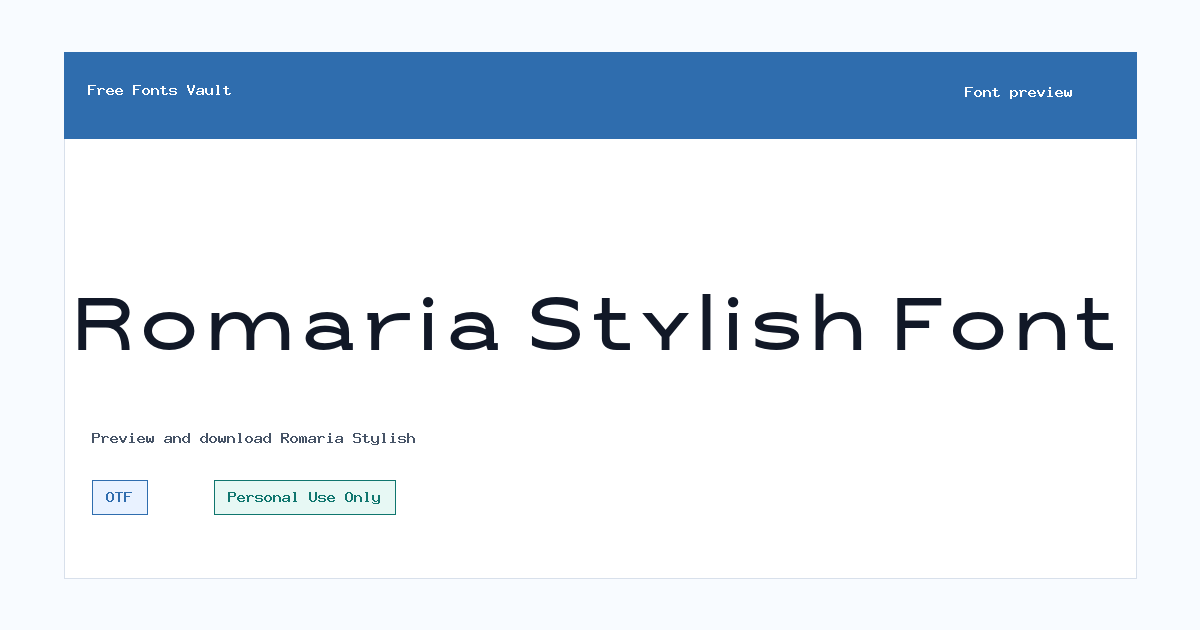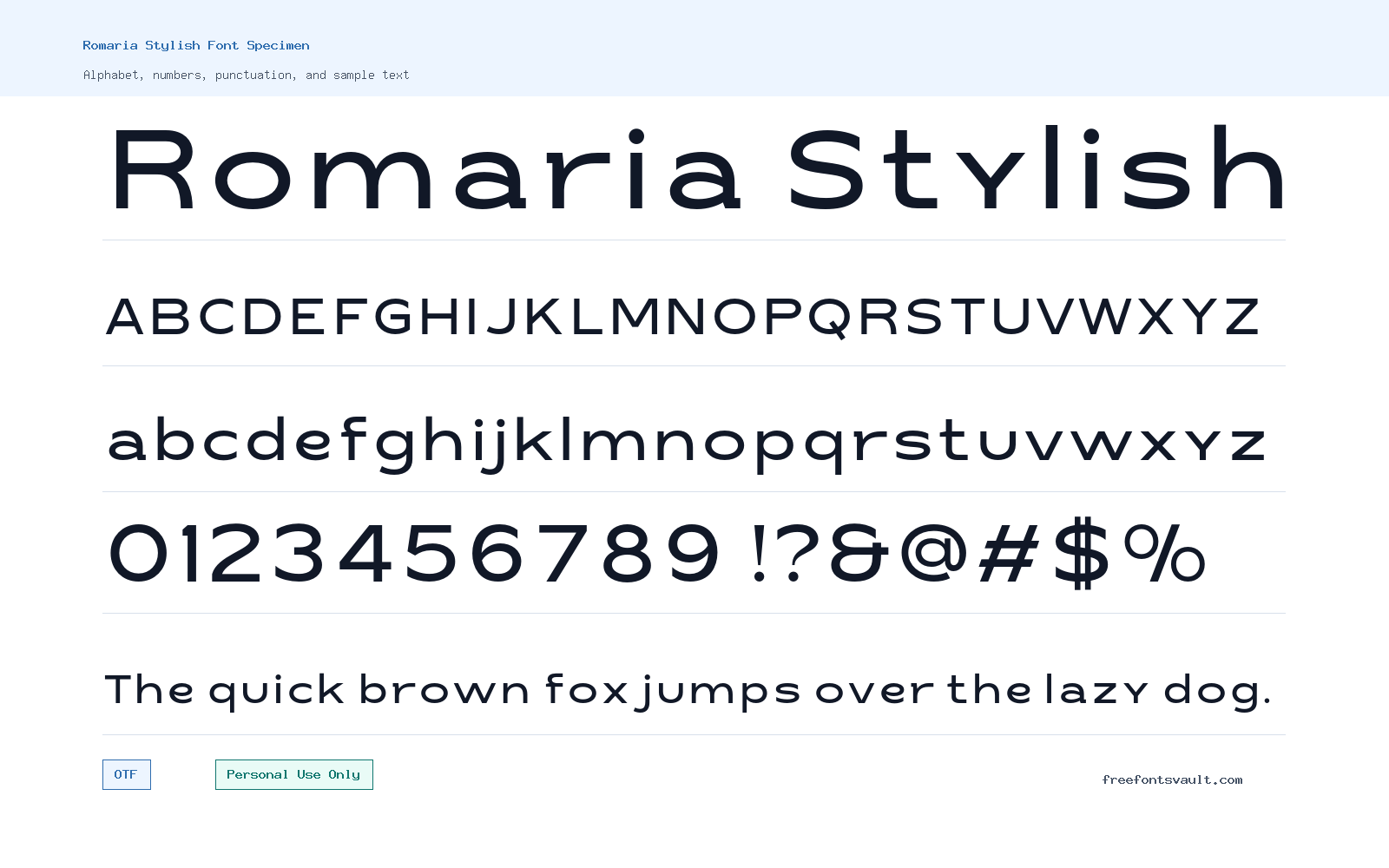
Romaria Stylish
Romaria Stylish is a personal-use display font for short, decorative text where the lettering needs to feel more expressive than a standard serif or sans serif.
Romaria Stylish works best as a headline or accent font rather than a long-reading text face. The name points toward a stylish display direction, so it is best approached as a font for titles, logo drafts, poster lines, invitation headings, packaging mockups, social graphics, and other places where a few words need visual character. Since the available file is an OTF regular style, visitors should test it in the preview box with the exact words they plan to use. Decorative fonts can change a lot depending on letter combinations, spacing, and capitalization, so checking names, brand words, and short phrases before downloading is worth the extra minute.
Use Romaria Stylish with restraint. It can give a design a more crafted or boutique look, but it should not carry dense paragraphs, small mobile text, or legal copy. For web mockups, try it in large hero headings, quote cards, banner text, and callout graphics, then pair it with a plain sans serif for body copy and navigation. For logo work, it may be useful during early personal concepting, but the license limit matters: a personal-use font should not be used in a client logo, product label, paid advertisement, monetized website, or commercial brand asset unless the rights holder grants the correct commercial permission.
- Display-focused family name and styling make it more appropriate for short text, headings, and visual accents than for paragraph reading.
- Works best when tested at larger sizes, where decorative letter shapes and spacing are easier to judge.
- Personal logo sketches and name-based concept drafts
- Poster titles, quote graphics, and social media headings
- Invitation headings, greeting cards, and event mockups
- Boutique-style packaging concepts for non-commercial practice
- Mood boards, typography studies, and portfolio experiments that do not require commercial rights
- Website hero mockups where the decorative font is paired with a clean body typeface
For the best result, preview Romaria Stylish with your real text before downloading. Try both uppercase and lowercase if your text uses them, check letter spacing in words with repeated letters, and test the font at the size you plan to use. Pair it with a simple sans serif or readable serif so the decorative style stays focused on headlines and does not make the whole design feel crowded.
It is better for short display text. Use it for headings, titles, and accents, then choose a simpler font for paragraphs and small text.
Pair it with a clean sans serif for a modern layout or a calm readable serif for a softer editorial feel. Keep the pairing simple so Romaria Stylish remains the main accent.
Display fonts can look different from word to word. Previewing your exact title, name, or phrase helps you check spacing, readability, and overall fit before using it in a design.